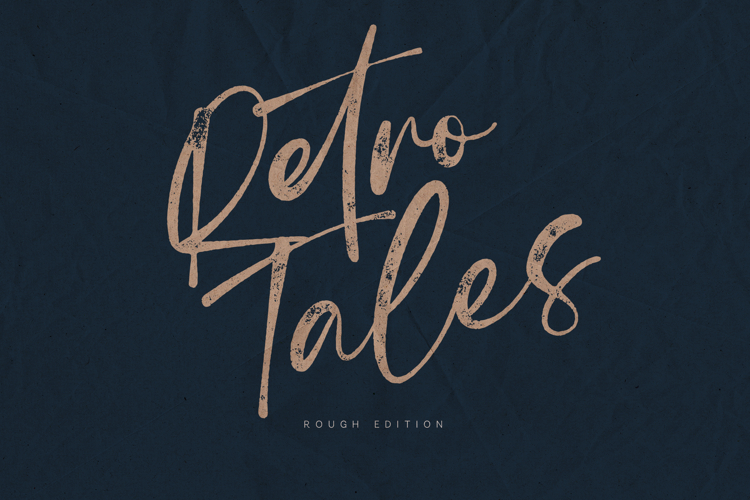
Retro Tales Rough Script Font
Retro Tales is a bold and expressive handwritten script font with a textured, rough brush finish. Designed to bring warmth, personality, and vintage charm into your projects, it combines fluid strokes with natural movement and handcrafted character.
Perfect for branding, logos, packaging, posters, social media, apparel design, wedding stationery, and creative quotes. The organic texture gives it an authentic ink-on-paper feel, making every word look alive and full of emotion.
Retro Tales includes uppercase and lowercase letters, numbers, punctuation, multilingual support, and special characters — all carefully crafted to maintain its natural handwritten flow.
- Numbers & Punctuation
- Rough Textured Style
Ideal for:
Logotypes, signatures, invitations, fashion branding, editorial headlines, merchandise, social media graphics, and modern vintage design projects.